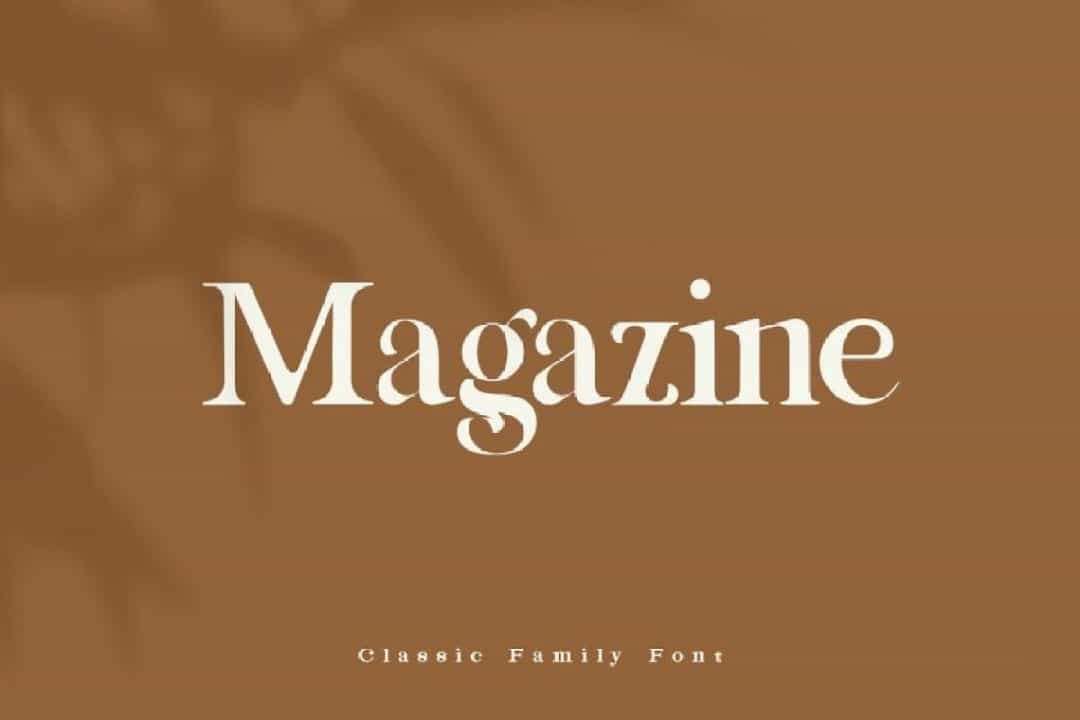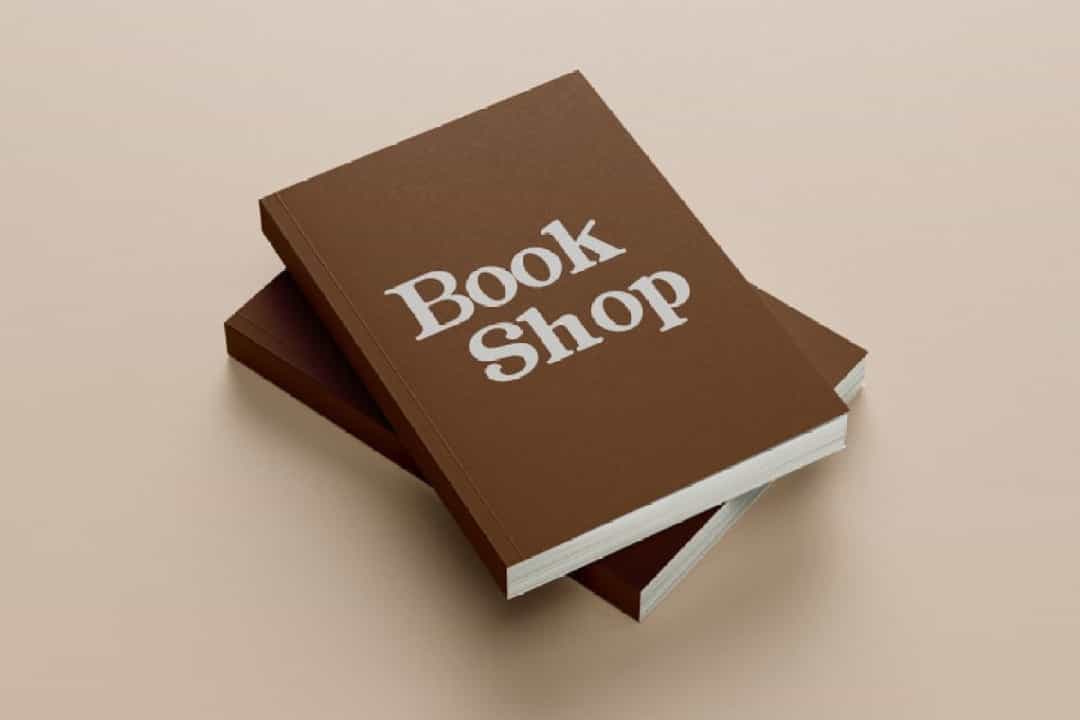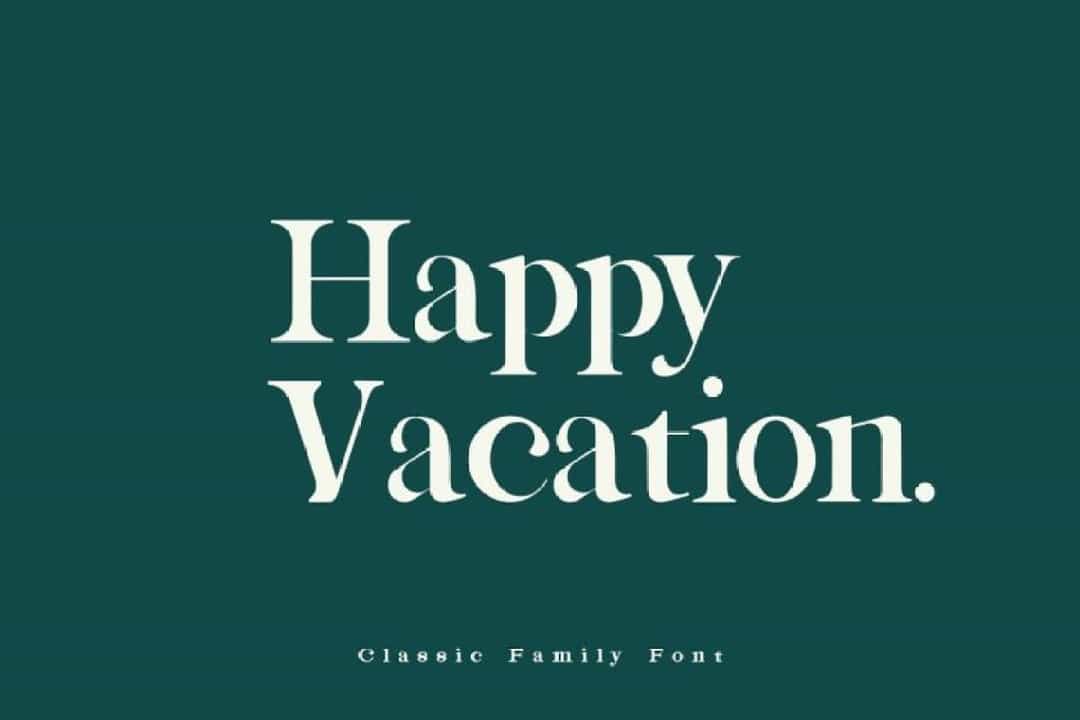
Magazine has an artistic deco style font with a unique and strong serif that is somewhat stretched out. Although, it has the art deco influence in it, the design remains to be modern and clean and it gives a classy feel when incorporated. It is also developed and disseminating by Nestype. This typeface is a robust and a strong type face that is of the serif type face category.